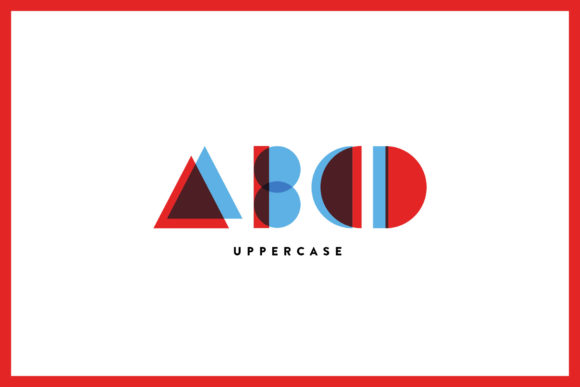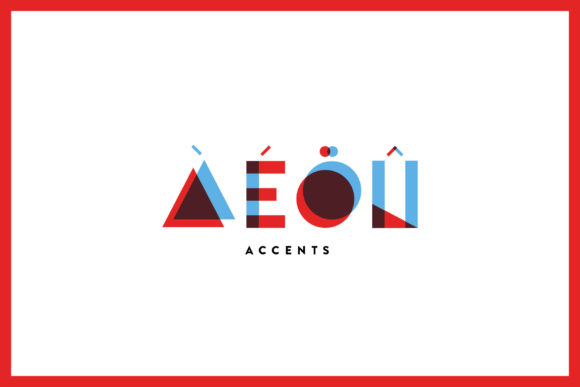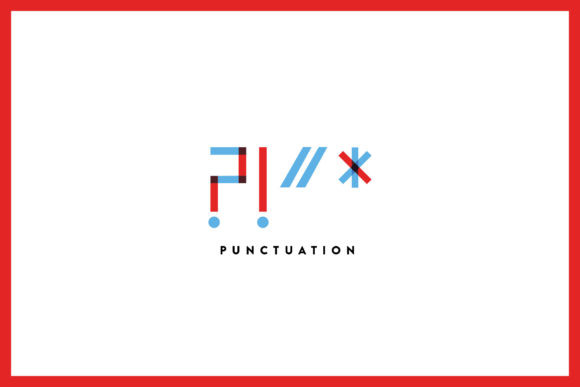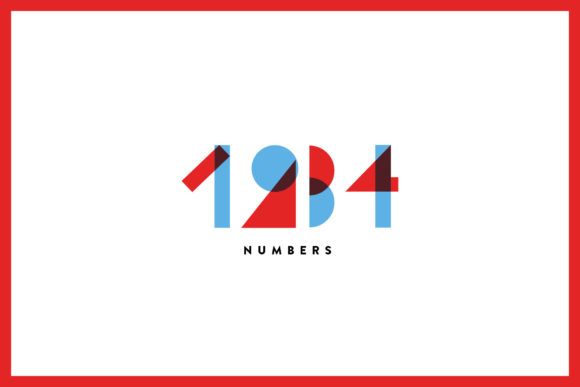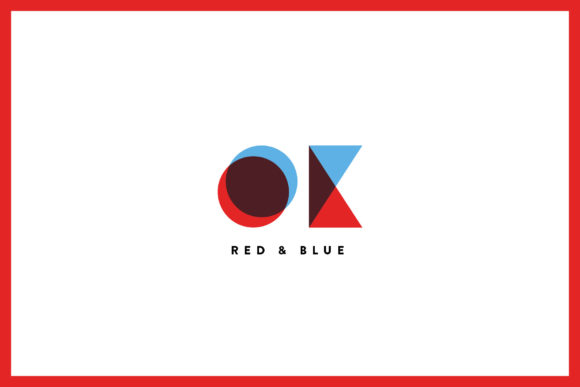
Introducing Hello Font: The Ultimate Decorative Font for Creative Projects
Hello Font is an exciting and unique decorative font that seamlessly blends fun and solemn influences, making it an incredibly versatile addition to any designer’s toolkit. With its geometrical style and wide range of applications, Hello Font is the perfect choice for crafters and designers looking to add a touch of personality to their creative projects.
The Characteristics of Hello Font
Hello Font boasts a distinctive and eye-catching design, characterized by its geometric shapes and decorative elements. The font’s unique blend of playful and serious influences makes it suitable for a wide range of applications, from creative and artistic projects to more formal and professional designs.
One of the standout features of Hello Font is its incredible versatility. Whether you’re looking to create a bold and statement-making design or a more subtle and understated one, Hello Font has the flexibility to adapt to any style or theme. Its geometrical style makes it perfect for designs that require a modern and edgy look, while its decorative elements add a touch of whimsy and personality.
Why Designers and Crafters Love Hello Font
So, why has Hello Font become a favorite among designers and crafters? For starters, its unique and distinctive design makes it an excellent choice for projects that require a bit of personality and flair. Whether you’re working on a logo, a poster, or a social media graphic, Hello Font is sure to make your design stand out from the crowd.
Another reason designers and crafters love Hello Font is its ease of use. The font is incredibly easy to read and works well in a variety of sizes, making it perfect for both print and digital designs. Additionally, Hello Font is highly versatile and can be used for a wide range of projects, from creative and artistic designs to more formal and professional ones.
Using Hello Font in Your Designs
So, how can you use Hello Font in your designs? The possibilities are endless! Here are a few ideas to get you started:
• Logos and branding: Hello Font’s unique and distinctive design makes it an excellent choice for logos and branding projects. Use it to create a bold and statement-making logo that sets your brand apart from the competition.
• Posters and flyers: Add a touch of personality to your posters and flyers with Hello Font. Its geometrical style and decorative elements make it perfect for designs that require a modern and edgy look.
• Social media graphics: Hello Font is also perfect for social media graphics, such as Instagram posts and Facebook graphics. Use it to create eye-catching and engaging designs that grab the attention of your followers.
• Crafting and DIY projects: Hello Font is not just limited to digital designs. You can also use it for crafting and DIY projects, such as making signs, banners, and other decorative items.
Tips and Tricks for Getting the Most Out of Hello Font
Here are a few tips and tricks to help you get the most out of Hello Font:
• Experiment with different sizes: Hello Font works well in a variety of sizes, so don’t be afraid to experiment with different sizes to find the one that works best for your design.
• Pair it with other fonts: Hello Font can be paired with other fonts to create a unique and interesting design. Try pairing it with a bold and sans-serif font for a modern and edgy look.
• Use it for headlines and titles: Hello Font’s decorative elements make it perfect for headlines and titles. Use it to add a touch of personality and flair to your design.
Font Name Hello Font
Author Fiona Poupeau
Hello Font is an exciting and versatile decorative font that is perfect for designers and crafters looking to add a touch of personality to their creative projects. With its geometrical style and wide range of applications, Hello Font is sure to become a favorite among designers and crafters. Whether you’re working on a logo, a poster, or a social media graphic, Hello Font has the flexibility to adapt to any style or theme. So why not give it a try and see what amazing designs you can create?